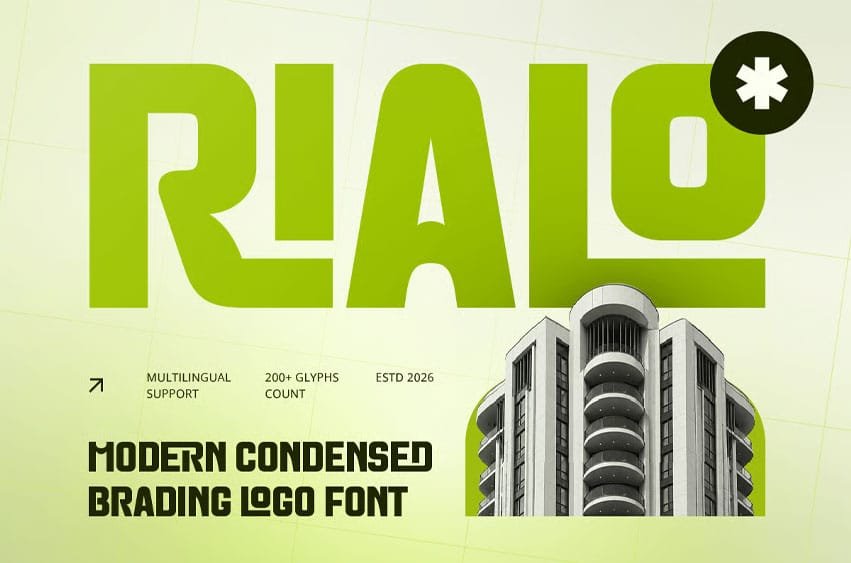
Rialo Font Modern Condensed Branding Logo Font is a contemporary condensed display font designed for modern logo design, corporate branding, business identities, and professional visual communication. Inspired by clean typography, modern brand systems, and minimalist design, Rialo combines narrow proportions with a strong visual presence to help brands create distinctive and memorable identities.
Featuring condensed letterforms, balanced proportions, clean spacing, and a refined modern structure, Rialo delivers excellent visual impact while preserving readability. Its space-efficient design makes it especially effective for logos, headlines, branding systems, marketing materials, editorial layouts, and digital platforms where typography needs to communicate confidence and clarity.
Whether you’re creating a corporate logo, developing a startup identity, designing a business brand, or producing contemporary marketing materials, Rialo provides the versatility and professional character needed to build a cohesive visual identity.
Rialo Font Features
• Character Set: Uppercase, lowercase, numbers, symbols, and punctuation
• Modern condensed letterforms optimized for logo design and professional branding
• OpenType features ready to enhance your design needs